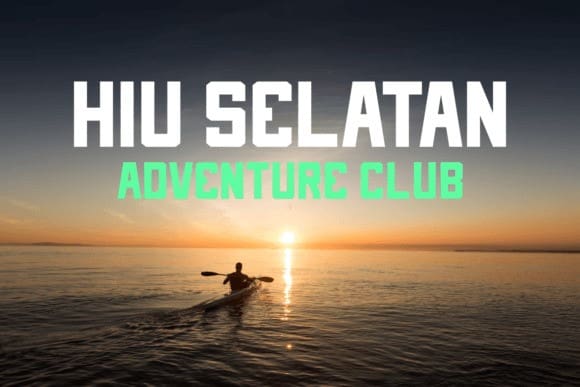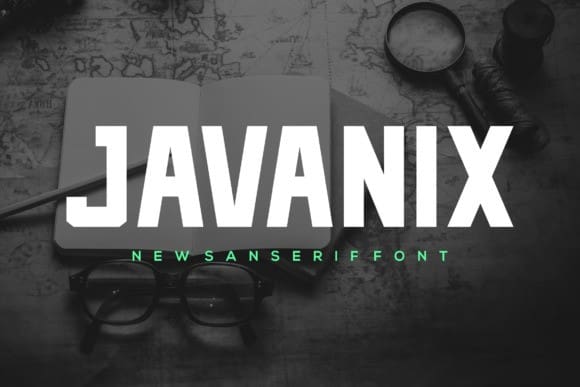
Javanix Font
Javanix Font is a bold and distinctive sans serif font, perfect for branding projects such as logos, sports themes, and more. It stands out across various applications.